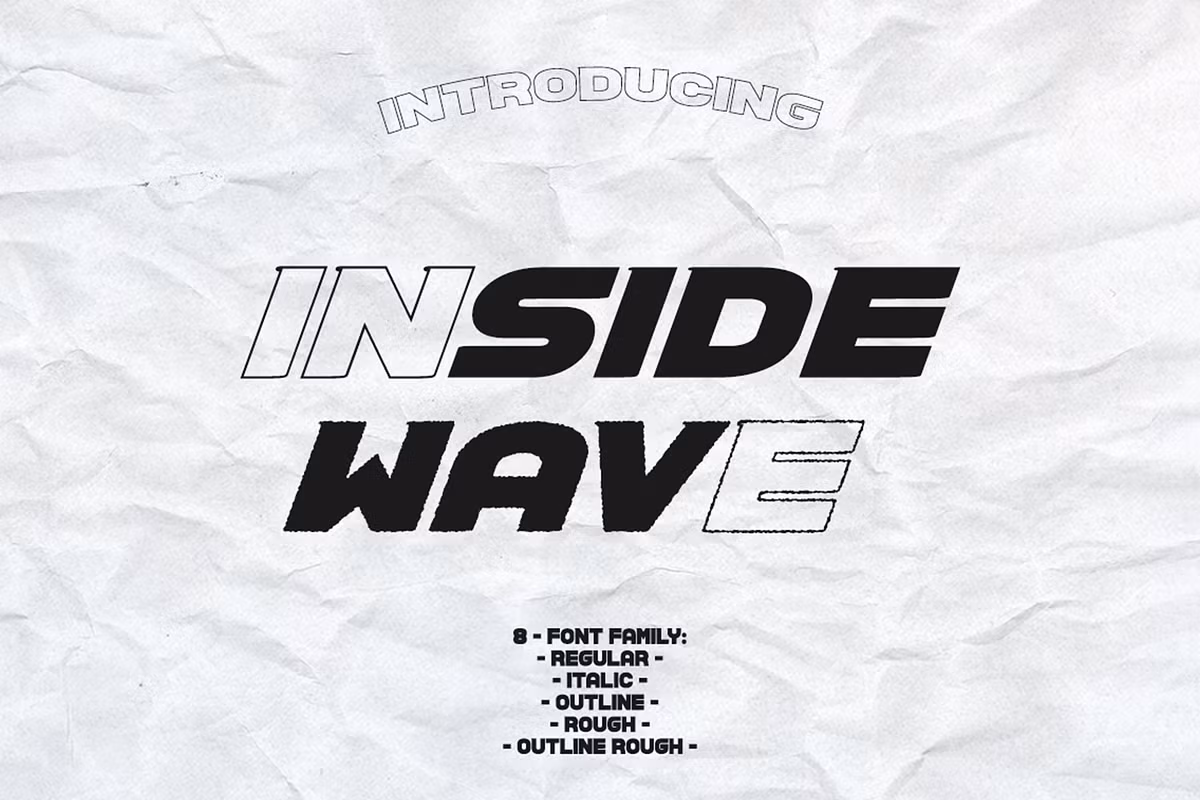
Introducing Inside Wave Font Family Free Download, a cool and modern display font designed to elevate your creative projects. With its bold letterforms and contemporary aesthetic, this font is perfect for product packaging, branding, posters, and other designs that require a daring and eye-catching typography. The Inside Wave Font Family offers versatility and style, making it a valuable addition to any designer's toolkit. Download it for free to experiment with its features in personal projects. For commercial use, please ensure you purchase the appropriate license. Enhance your designs with the dynamic and modern Inside Wave Font Family Free Download